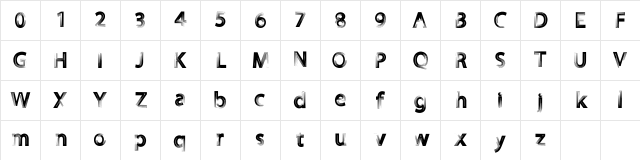
FOREVER 7entin demo Regular Free Font
FOREVER 7entin demo Regular
Design Context for FOREVER 7entin demo
FOREVER 7entin demo is a composed and adaptable typeface that performs quietly and consistently across a wide range of design contexts.